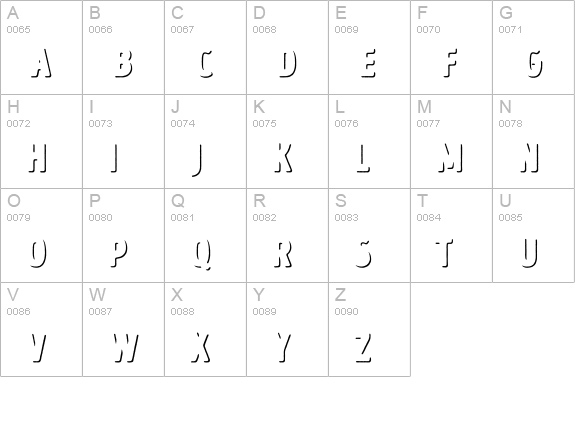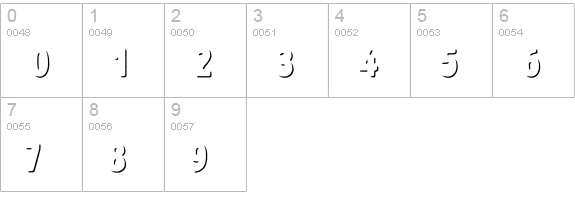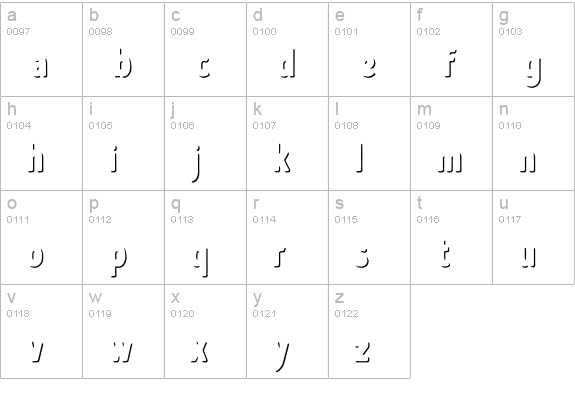
Intro Head H Shade Font Details
Intro Head H Shade font is a striking and modern typeface that exudes elegance and sophistication. With its bold letterforms and unique shading, this font is perfect for creating eye-catching headlines, titles, and logos that demand attention. The sleek design and intricate details of Intro Head H Shade make it a versatile choice for a wide range of design projects. Best of all, Intro Head H Shade font is completely free to download at FontsMarket.com. This means you can add this stylish and impactful font to your collection without any cost. Whether you're working on a branding project, poster design, or website layout, Intro Head H Shade font is sure to elevate your work and make a lasting impression. Don't miss out on this fantastic opportunity to enhance your designs with this exceptional typeface. Download Intro Head H Shade font today and take your creations to the next level!